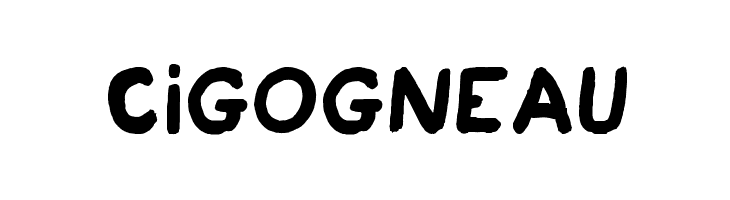
A bold, playful font with rounded, hand-drawn characters.
A bold, playful font with thick, rounded strokes and a hand-drawn feel.
A bold, playful handwritten font with thick strokes and rounded edges.
A playful, whimsical font with rounded, irregular letterforms.
A playful, bold font with a hand-drawn, whimsical style.
A playful, rounded font with smooth curves and a friendly appearance.